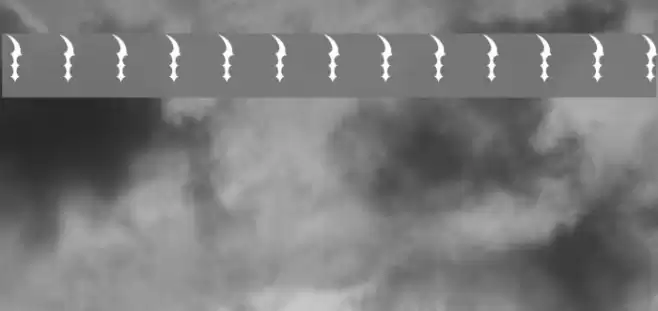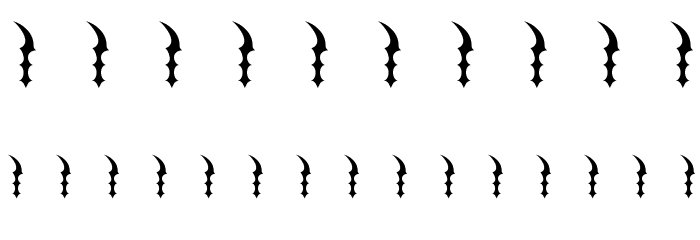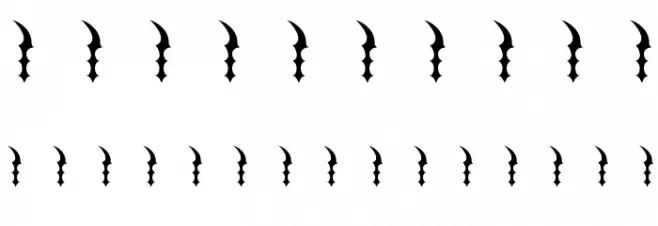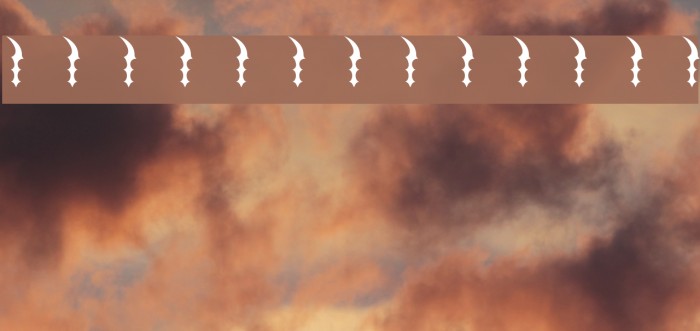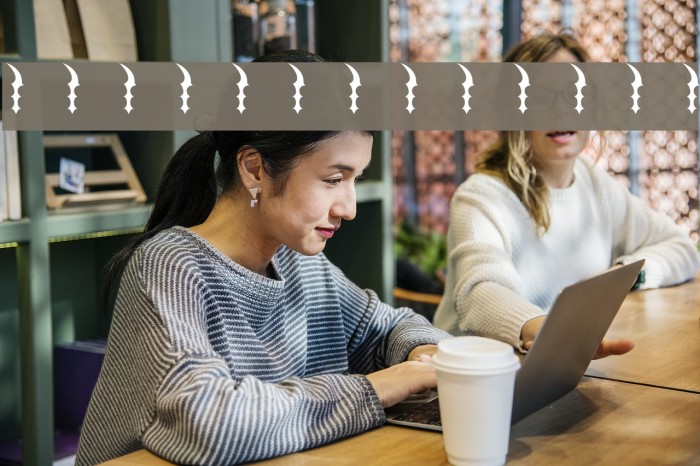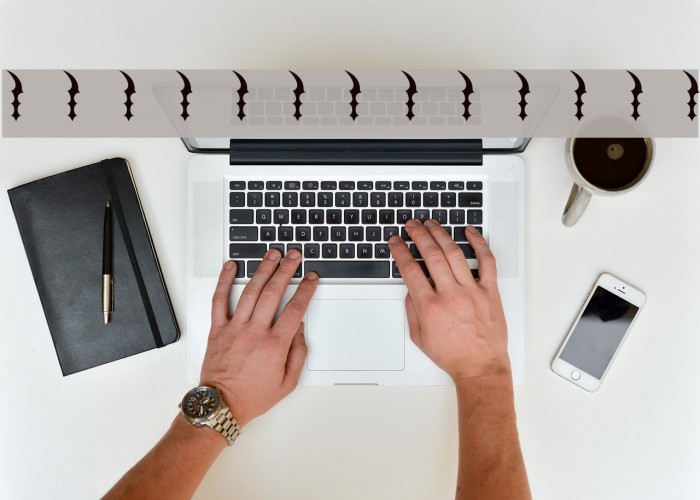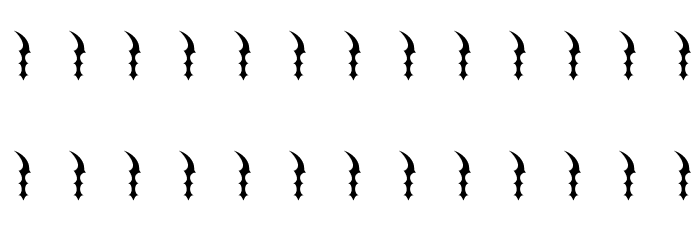
meguido-jed- Font
meguido-jed- Description
Highly stylized, abstract glyphs with strong geometric shapes and sharp, pointed terminals; each character appears as a mirrored silhouette with bold, high-contrast strokes and no traditional letterform structure.
Abstract, geometric display font with mirrored, pointed shapes from Gothic fonts.
- Proposed Projects: Experimental posters, album covers, avant-garde branding, art installations.
- Overall Style: Decorative, Abstract, Modern
- Use Case: Logos, Posters, Artistic projects